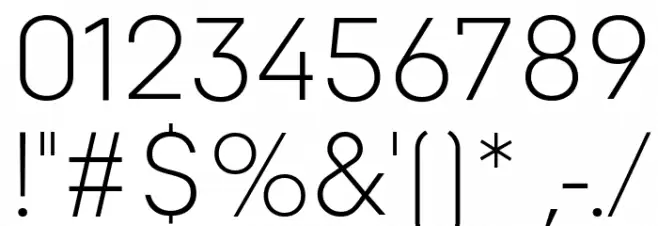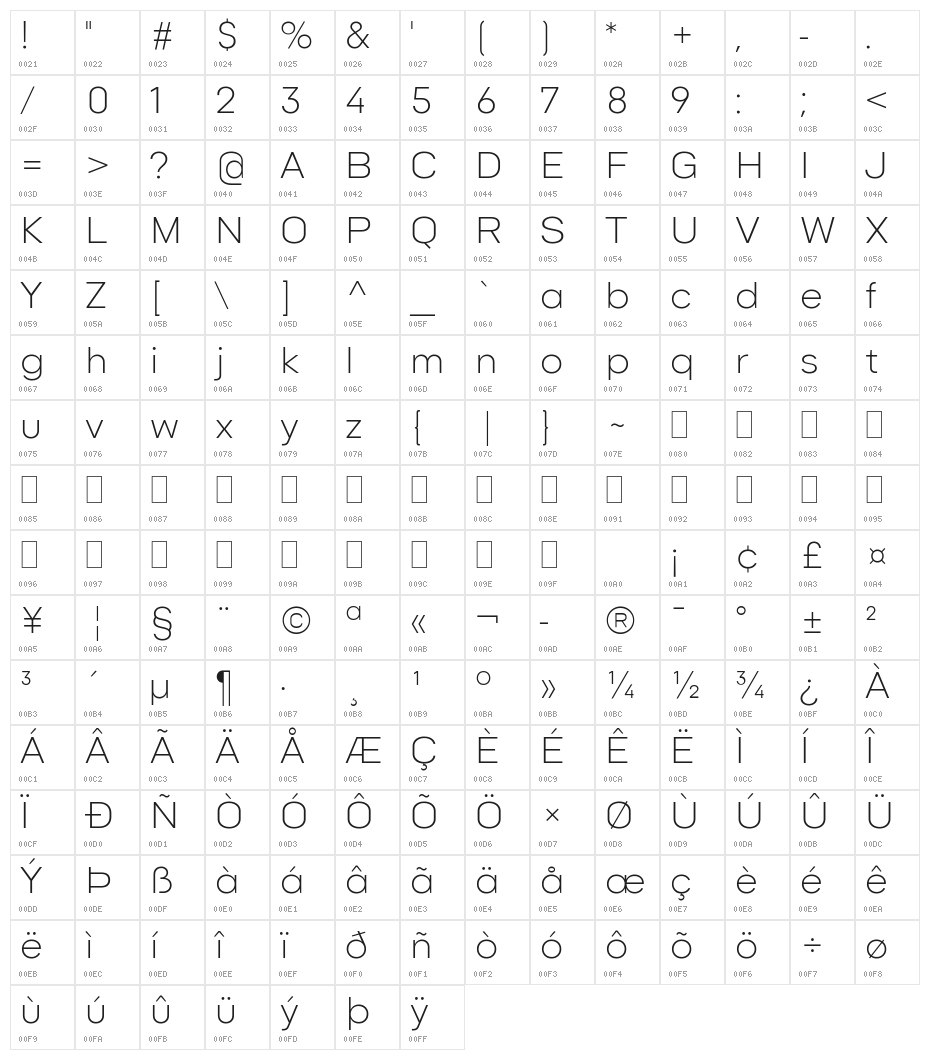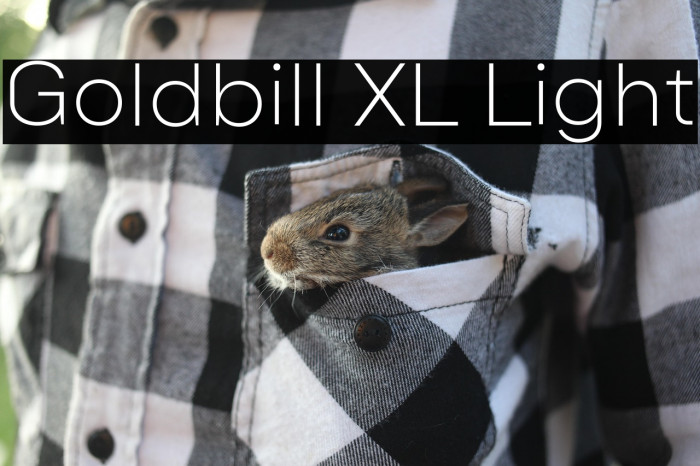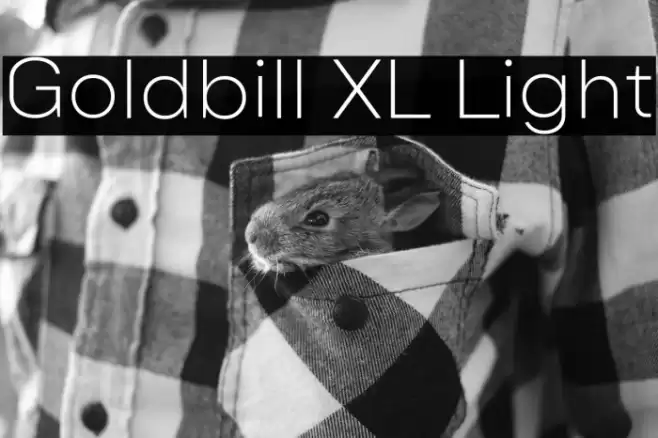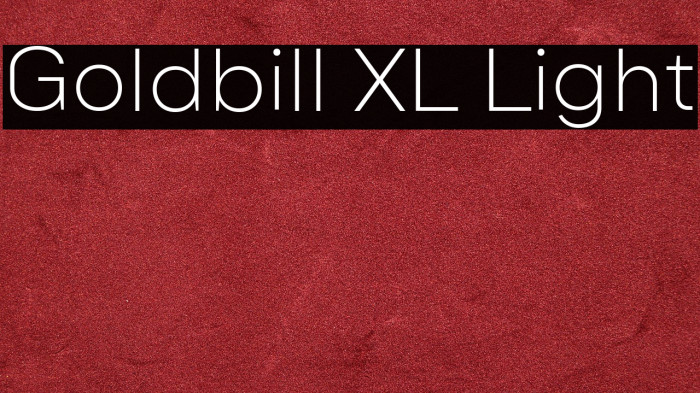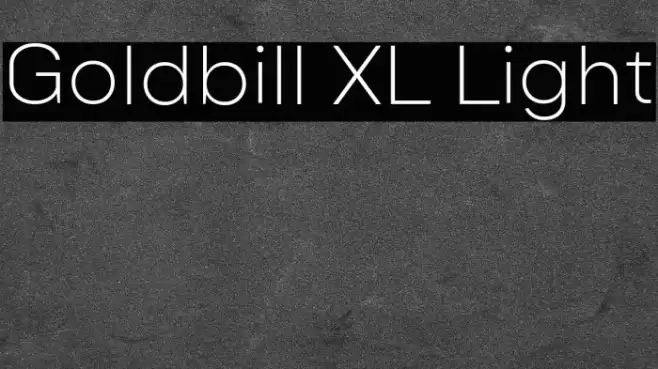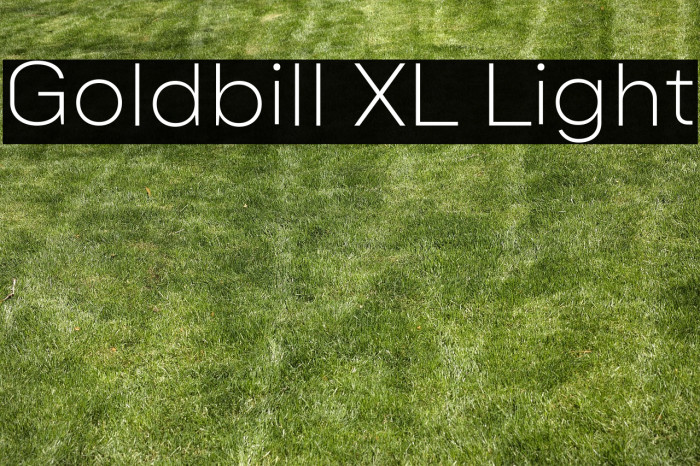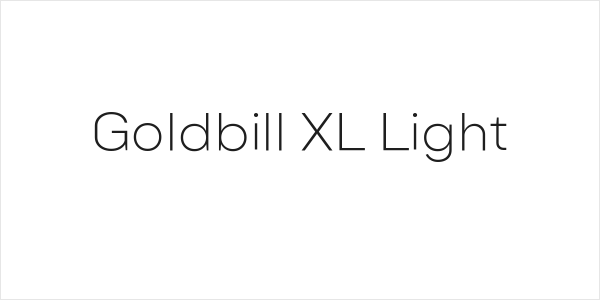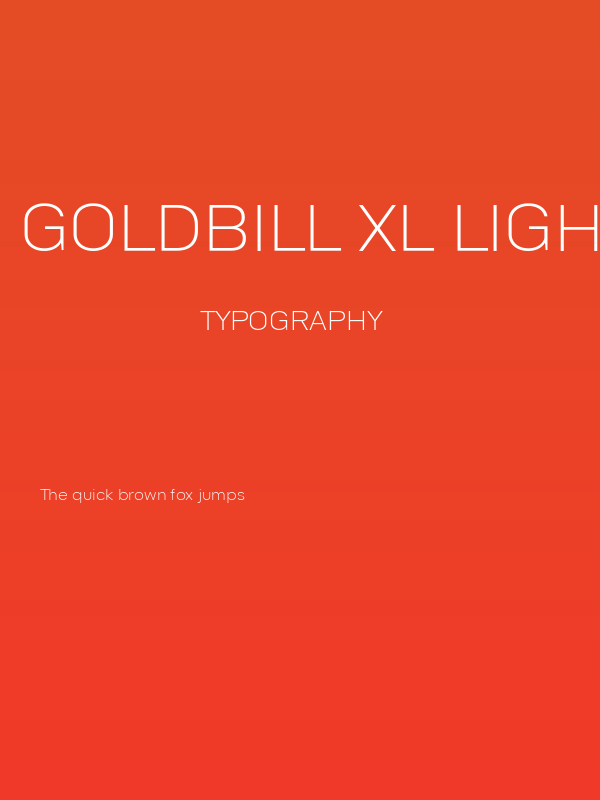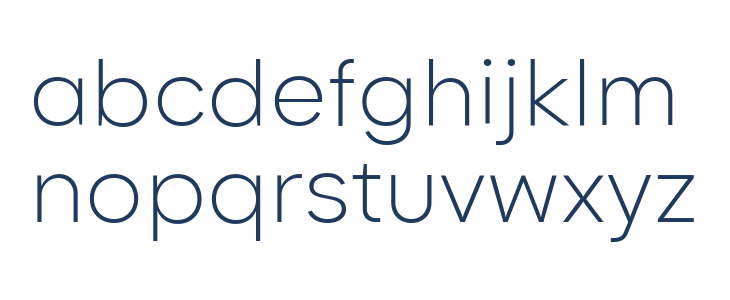
Goldbill XL Light Font
Goldbill XL Light Description
This font features a clean and modern sans-serif design with a light weight, providing a sleek and contemporary appearance. The characters are well-proportioned with a consistent stroke width, contributing to its minimalist aesthetic. The uppercase and lowercase letters are crafted with smooth curves and straight lines, ensuring readability and elegance. The numerals and special characters maintain the same design ethos, offering uniformity across all elements. Its simplicity and clarity make it versatile for various design applications.